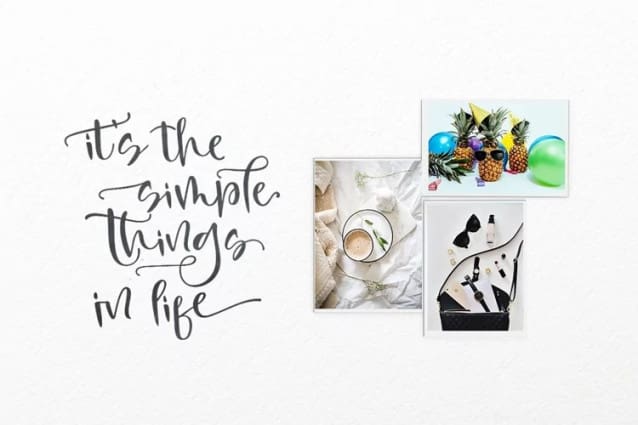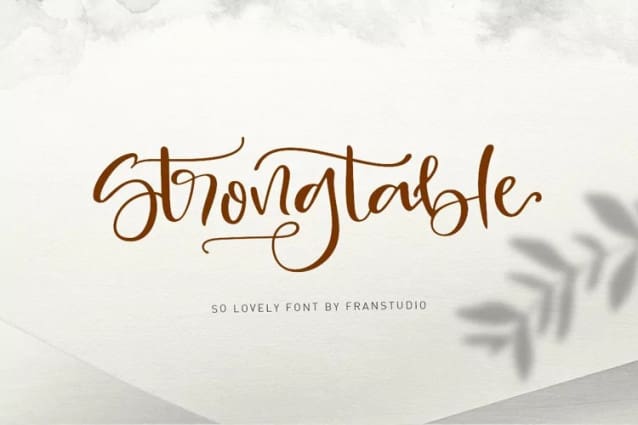
Strong Table Font
Strong Table Font is a hand-brushed modern calligraphy script font, created with both pen & brush. It includes a dancing baseline with separate swashes that can be applied to the beginning and ends of all lowercase. Strongtable includes several ligatures, alternates and international support for most western languages.